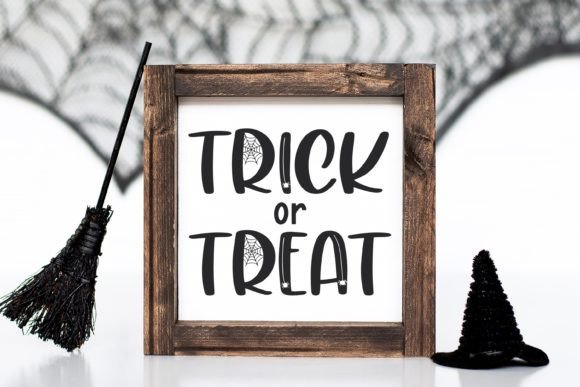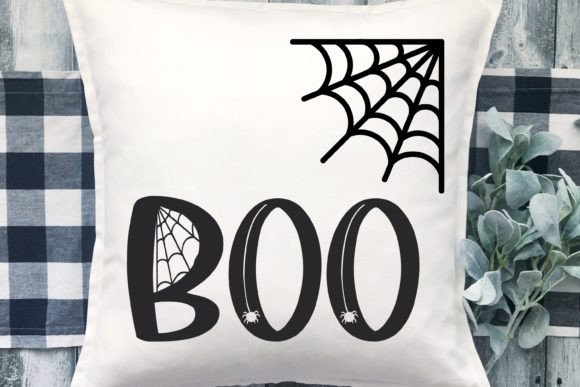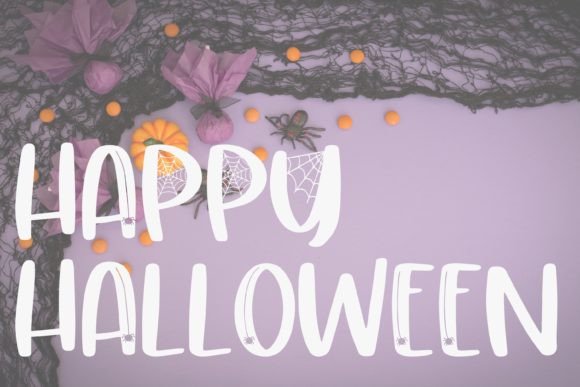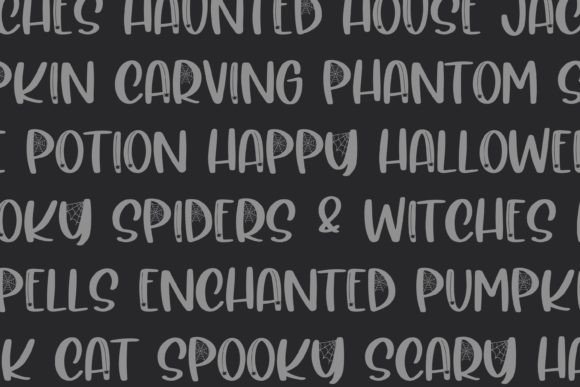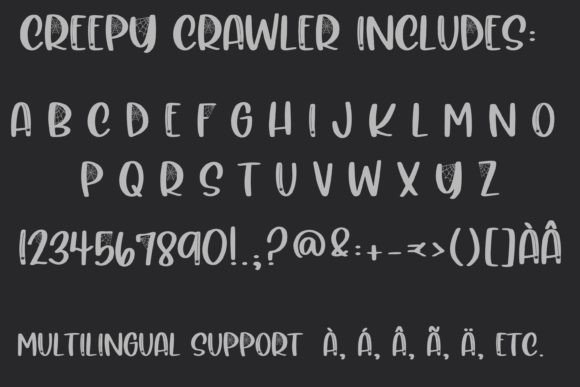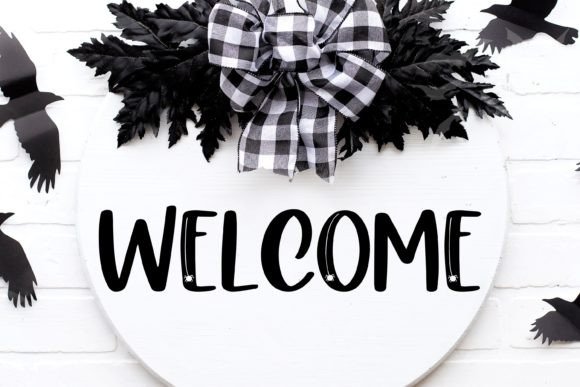
Introduction to Creepy Crawler Font
As the days grow shorter and the nights grow darker, many of us start to feel a familiar thrill of excitement. It’s that time of year when we can let our creativity run wild and indulge in all things spooky and sweet. For designers, this means a treasure trove of design resources just waiting to be tapped into. And at the top of our list should be the Creepy Crawler Font – a delightful, handwritten display font that’s sure to add a touch of whimsy to any project.
Perfect for designers looking to add a little extra magic to their work, the Creepy Crawler Font is a high-quality design resource that’s free to download and use in all your creative projects. With its transparent background and adorable spiders and webs, this font is a must-have for anyone looking to create something truly special.
Key Features of Creepy Crawler Font
- Unique, hand-drawn design perfect for creative projects requiring a spooky or whimsical touch.
- Includes a transparent background option, allowing for easy customization and composition.
- Perfect for designers and artists working on Halloween-themed projects, horror movies, or other creative endeavors that require a creepy atmosphere.
Honest Review: Creepy Crawler Font
I recently had the chance to work with the Creepy Crawler Font, a free design resource that I was both excited and curious about. I was looking for a font that would add a spooky twist to my creative project, and I must say that this font did not disappoint.
- High-quality design: The font has a unique and eerie feel to it, making it perfect for projects that require a creepy atmosphere.
- Transparent background: The font’s transparent background made it easy to incorporate into my design without any issues.
- ⚠️ Limited flexibility: The font is designed to be a specific style, which may limit its use in projects that require a more versatile font.
- ⚠️ Not suitable for all audiences: The font’s creepy theme may not be suitable for all types of projects, especially those targeting a younger audience.
Overall, I was impressed with the Creepy Crawler Font’s unique design and the ease of use it provided. While it may have some limitations, it’s a great resource for designers looking to add a spooky touch to their creative projects.
Tips for Getting the Most Out of Creepy Crawler Font
For the best results, use the Creepy Crawler Font on a high-quality design resource with a transparent background. This will allow you to achieve a seamless and creepy effect.
The Creepy Crawler Font is perfect for creative projects that require a spooky or eerie atmosphere, such as horror movie posters, Halloween decorations, or even a haunted house theme. You can also use it for other design projects that require a bold and creepy font, such as video game titles or haunted attraction logos.